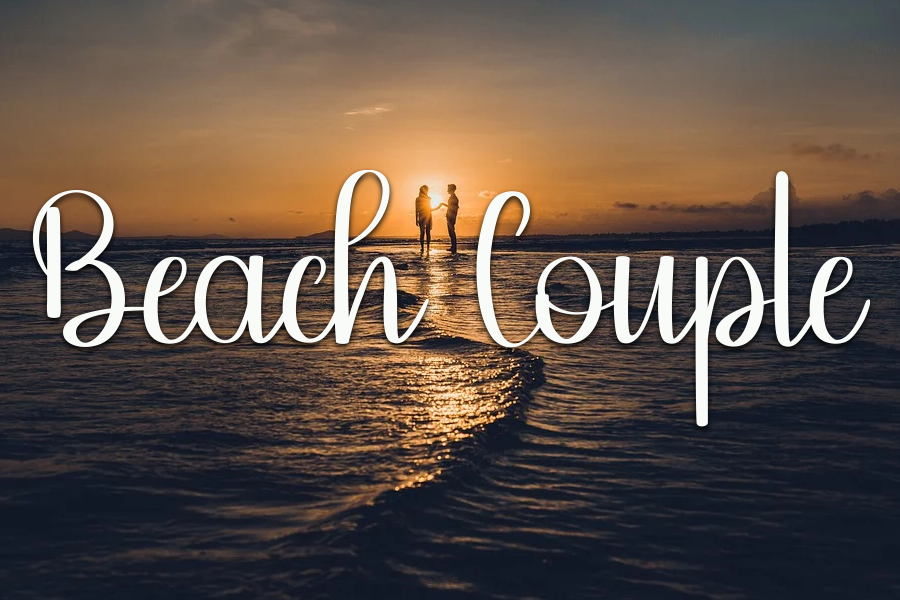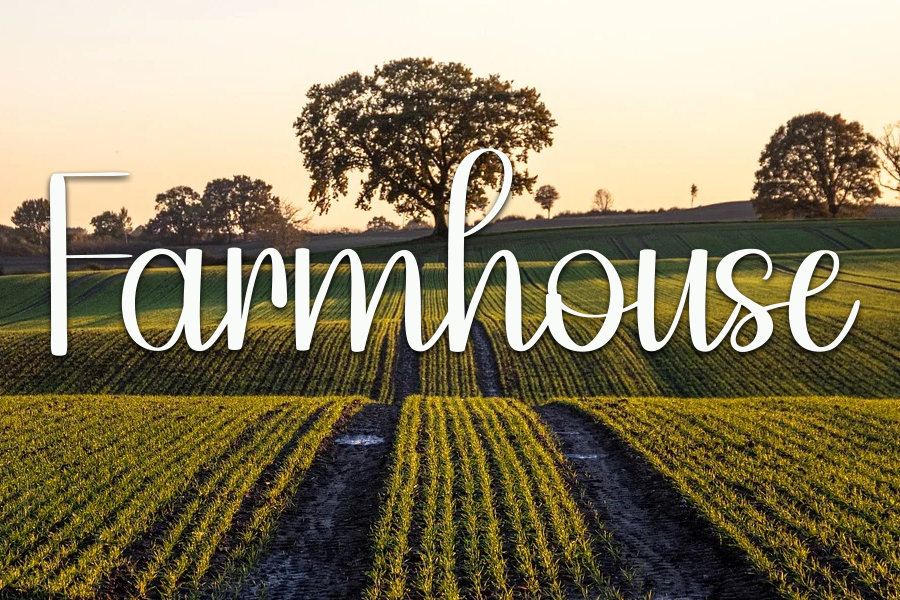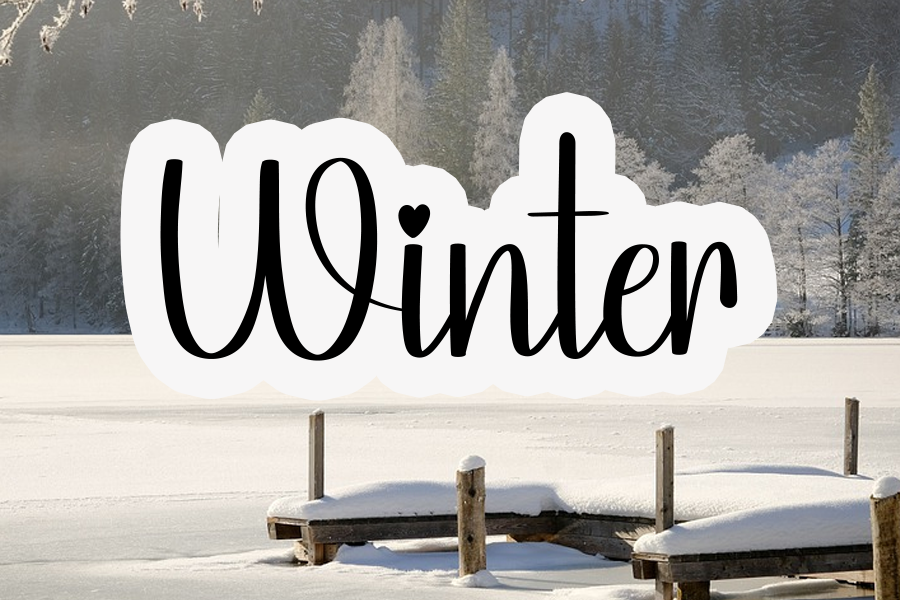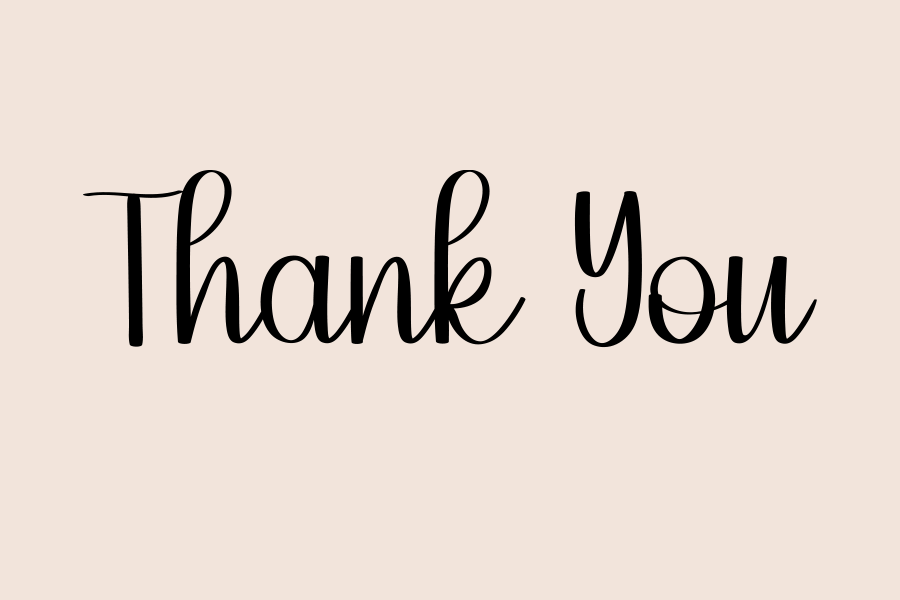
Sunday Script Typeface
This is a relaxed handwritten font that has a modern yet whimsical style. It will undoubtedly immerse your designs into a fun, cool world.
It’s a simple handwriting perfect for weddings, wall hangings, decorations, products and more